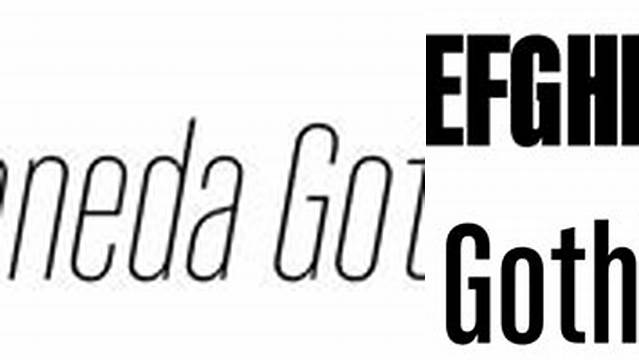
Hey guys! Are you on the hunt for a sleek, modern, and totally free font to elevate your design projects? Look no further! In this article, we're diving deep into the world of Kaneda Gothic, a fantastic typeface that's capturing the hearts of designers everywhere. We'll explore what makes Kaneda Gothic so special, where you can download it for free, and how to use it effectively in your projects. So, buckle up and let's get started!
What is Kaneda Gothic?
Kaneda Gothic is more than just a font; it's a statement. This typeface boasts a clean, contemporary aesthetic that's perfect for a wide range of applications. Imagine a font that effortlessly blends modern sophistication with timeless elegance – that's Kaneda Gothic in a nutshell. Its geometric forms and crisp lines create a visual harmony that's both pleasing to the eye and highly legible. Whether you're designing a website, crafting a logo, or putting together a print campaign, Kaneda Gothic can add that touch of professionalism and style that sets your work apart. One of the key characteristics of Kaneda Gothic is its versatility. It's not just a one-trick pony; this font can adapt to various design contexts, making it an invaluable asset in your creative toolkit. Think about it: you can use it for headlines that demand attention, body text that needs to be easily readable, and even branding materials that require a consistent and modern look. The font's adaptability stems from its well-balanced letterforms and careful attention to detail, ensuring that it looks great in any size and any format. Another aspect that makes Kaneda Gothic stand out is its legibility. In the world of typography, legibility is king. A font can be beautiful, but if it's hard to read, it's not doing its job. Kaneda Gothic excels in this area, thanks to its clear letterforms and generous spacing. This makes it an excellent choice for projects where readability is paramount, such as websites, mobile apps, and printed materials. Whether your audience is viewing your design on a large screen or a small mobile device, Kaneda Gothic ensures that your message comes across loud and clear. But what really makes Kaneda Gothic a favorite among designers? It's the combination of all these factors: its modern aesthetic, its versatility, its legibility, and the fact that it's available for free. In a world where high-quality fonts often come with a hefty price tag, Kaneda Gothic offers a refreshing alternative. It allows designers to access a premium-quality typeface without breaking the bank, making it a fantastic resource for both seasoned professionals and up-and-coming creatives. So, if you're looking for a font that can elevate your designs, improve readability, and save you money, Kaneda Gothic is definitely worth exploring.
Why Choose Kaneda Gothic?
Why should you choose Kaneda Gothic, you ask? Well, let me tell you, there are tons of reasons! First off, this font is a true workhorse. It's incredibly versatile, meaning you can use it for just about anything. Need a strong headline that grabs attention? Kaneda Gothic has got you covered. Want a clean, readable body text? No problem! How about a sleek logo that screams professionalism? Kaneda Gothic can do that too! Its adaptability makes it a fantastic choice for designers who want a font that can handle a wide range of projects. Think of it as the Swiss Army knife of typefaces – always reliable and ready for anything. But it's not just about versatility; Kaneda Gothic also boasts a modern aesthetic that's hard to resist. Its geometric forms and crisp lines give it a contemporary feel that's perfect for today's design trends. Whether you're working on a website, a poster, or a presentation, Kaneda Gothic can add a touch of sophistication and style. It's a font that looks like it belongs in the 21st century, and it can help your designs do the same. Another key advantage of Kaneda Gothic is its legibility. In the world of design, legibility is crucial. A font can be beautiful, but if it's hard to read, it's not very useful. Kaneda Gothic excels in this area, thanks to its clear letterforms and generous spacing. This makes it an excellent choice for projects where readability is paramount, such as websites, mobile apps, and printed materials. Your audience will thank you for choosing a font that's easy on the eyes. And let's not forget the best part: Kaneda Gothic is free! In a world where high-quality fonts often come with a hefty price tag, this is a huge win. You can access a premium-quality typeface without spending a dime, which is fantastic news for designers on a budget. Whether you're a student, a freelancer, or a small business owner, Kaneda Gothic makes it possible to create professional-looking designs without breaking the bank. So, to sum it up, Kaneda Gothic is a versatile, modern, legible, and free font that's perfect for a wide range of design projects. It's a true gem in the world of typography, and it's definitely worth adding to your font library. If you're looking for a font that can elevate your designs and make your work stand out, Kaneda Gothic is the way to go.
How to Use Kaneda Gothic Effectively
Alright, you've got Kaneda Gothic downloaded and installed – awesome! But now comes the real fun part: using it effectively in your design projects. Just like any tool, a font is only as good as the way you wield it. So, let's dive into some tips and tricks to help you make the most of Kaneda Gothic and create designs that truly shine. First and foremost, consider the overall tone and message of your design. Kaneda Gothic is a modern, versatile font, but it's not a one-size-fits-all solution. Think about the feeling you want to evoke and whether Kaneda Gothic aligns with that. For example, it's a fantastic choice for projects that need to convey a sense of professionalism, innovation, or simplicity. However, it might not be the best fit for designs that require a more whimsical or traditional look. Understanding your design's purpose and target audience is key to choosing the right font. Next up, let's talk about hierarchy and readability. In any design, it's important to guide the viewer's eye and make sure your message is clear. Kaneda Gothic can be used to create a strong visual hierarchy by using different font weights and sizes. For example, you can use a bold weight for headlines to grab attention and a lighter weight for body text to ensure readability. Experiment with different combinations to see what works best for your design. Spacing is another crucial element in typography. Pay attention to the letter spacing (tracking) and line spacing (leading) to make sure your text is easy to read. Kaneda Gothic has a clean, open structure, so it generally looks good with standard spacing. However, you might want to adjust the spacing slightly depending on the size and weight of the font you're using. Too little spacing can make your text look cramped, while too much spacing can make it feel disconnected. Color is another powerful tool in design, and it can have a big impact on how Kaneda Gothic looks. Consider the contrast between your text and background colors. If you're using a light font weight, make sure you have enough contrast so that the text stands out. Dark text on a light background is generally the most legible combination, but you can also experiment with other color schemes to create a specific mood or style. Finally, don't be afraid to experiment and break the rules! These tips are a great starting point, but the best way to learn how to use Kaneda Gothic effectively is to try it out in different contexts. Play around with different font weights, sizes, spacing, and colors. See how it looks with different types of imagery and layouts. The more you experiment, the more you'll develop your own unique style and learn how to make Kaneda Gothic truly shine in your designs. Remember, the goal is to create designs that are not only visually appealing but also communicate your message clearly and effectively. With Kaneda Gothic in your toolkit, you're well on your way to achieving that goal!
Kaneda Gothic: Font Pairing
Now, let's talk about one of the coolest aspects of typography: font pairing! It's like matchmaking, but for fonts. The goal is to find fonts that complement each other and create a harmonious visual balance. Kaneda Gothic, with its modern and versatile style, plays well with a variety of other fonts. But how do you choose the right partners for it? Don't worry, I'm here to spill the beans on some fantastic font pairings that will take your designs to the next level. One classic approach is to pair a sans-serif font like Kaneda Gothic with a serif font. This creates a nice contrast between the clean, geometric lines of Kaneda Gothic and the more traditional, embellished forms of a serif. A great serif pairing option for Kaneda Gothic is a font like Merriweather or Lora. These fonts have a timeless elegance that complements Kaneda Gothic's modernity. You can use the serif font for headings or body text, depending on the look you're going for. Another solid strategy is to pair Kaneda Gothic with another sans-serif font, but one that has a slightly different personality. This creates a subtle contrast while maintaining a cohesive feel. For example, you could pair Kaneda Gothic with a font like Open Sans or Roboto. These fonts are both highly legible and have a slightly softer, more rounded appearance than Kaneda Gothic. This can create a nice visual balance and prevent your design from feeling too sterile. If you're looking for a more bold and impactful pairing, you could try pairing Kaneda Gothic with a condensed sans-serif font. A condensed font has narrower letterforms, which can create a sense of urgency and importance. This can be a great choice for headings or call-to-action buttons. Just be careful not to overuse condensed fonts, as they can be less legible in large blocks of text. Another fun approach is to pair Kaneda Gothic with a script or handwritten font. This can add a touch of personality and warmth to your designs. However, this pairing requires a bit more finesse, as it's easy to create a clash if the fonts are too similar or too different. Look for a script font that has a clean, modern feel, such as Pacifico or Dancing Script. Use the script font sparingly, such as for headings or accents, and let Kaneda Gothic do the heavy lifting for body text. Ultimately, the best way to find font pairings that work is to experiment and trust your eye. Try out different combinations and see what feels right for your design. Don't be afraid to break the rules and go against conventional wisdom. The most important thing is to create a visual harmony that supports your message and makes your design stand out. With Kaneda Gothic as your starting point, you have a solid foundation for creating beautiful and effective typography.